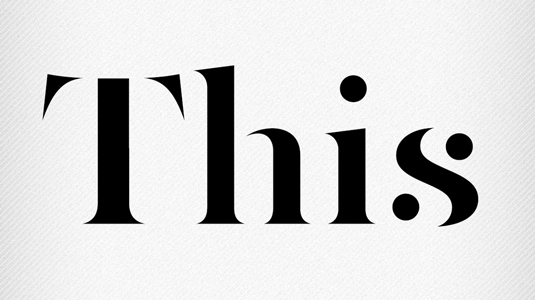
Font of the day: THIS
Every day we showcase the best fonts on the web. Today it's THIS by Corey Holms, which is free to download.
THIS by Corey Holms
Stencil typeface THIS is based on some lettering designer Corey Holms created years ago for a movie poster that was rejected by the client and ended up sat on his hard drive collecting digital dust.